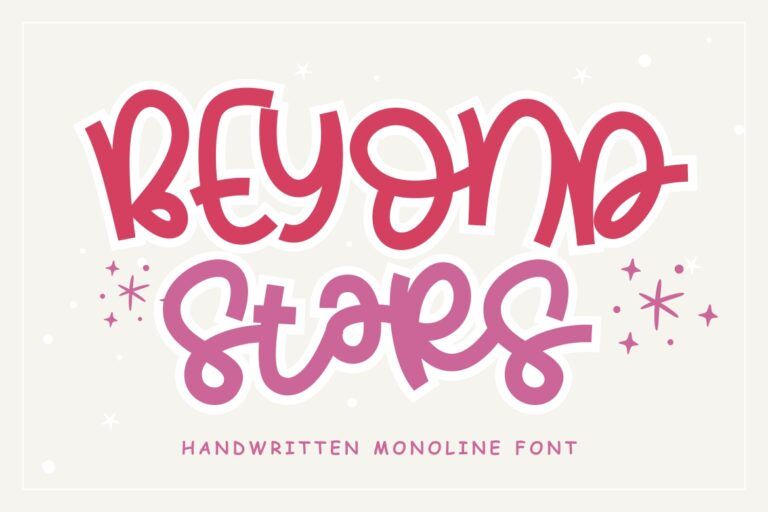
10 Font Cute Recommendations for Instagram Branding
On Instagram, visually appealing contents using font cute tend to gain more attraction and interaction. Instagram users often find these types of contents grabbing attention and inviting them to dig more.
Whether you work for companies or personal branding, having this impactful effect on your contents is not necessarily something unachievable. You just need to search for cute fonts that best represent your branding purposes.
This article can be a kick start to help you begin with the quest. Let’s go exploring the options!
Why Using Font Cute Effective for Instagram Branding?
A well-chosen cute font can effectively boost your Instagram branding and here are the reasons why you should not skip this as one of your branding strategies:
⦁ Conveying Brand Personality
If you are aiming to be an approachable brand, cute fonts are the right weapon to begin with. This type can evoke friendly and playful brand personality traits, helping you gain more recognition and maintain visual consistency.
⦁ Increasing Engagement
Because of its appealing designs, cute typefaces are likely inviting shares and saves. Audiences may find your contents captivating and memorable.
If it’s able to attract emotional appeal, audiences may also press likes and leave comments, increasing your engagement rate significantly.
⦁ Improving Storytelling
Font cute is easy to pair with narrative contents. It can support every type of earnest product stories and personal captions, reinforcing your brand to be the main character of the contents.
It also signals that you craft the stories with true intention and gradually build genuine connection with your audiences.
⦁ Target Audiences Alignment
Using adorable fonts can help brands speak directly to certain target audiences, especially those who value stylish, soft, playfulness, and aesthetic styles.
If your target audiences find your contents matching with their personal tastes, they will gravitate toward your brand voluntarily.
⦁ Stand Out from Competitors
It is not easy to stand out in crowded social media feeds like Instagram.
But, contents with cute fonts have higher chances to pop up among the busy feeds as long as it’s put in the right position. It will help your brand be discoverable amidst the sea of other million contents.
10 Best Cute Fonts for Instagram Branding
Ready to explore the best cute fonts for your Instagram branding? Follow these lists of font cute crafted and curated specially by HansCo Studio:
1. Cutie Kitty
Cute Kitty combines cute handwriting with clean and friendly styles. It’s easy to read and versatile to mix in any Instagram content designs. You can specifically use this font for cozy lifestyle or handmade business contents.
2. Beyond Stars
With its bouncy styles, Beyond Stars instantly give a cheerful and joyful look to your timelines. This font will keep your content alive and fresh without the need for being too formal with styles.
It is especially perfect for lifestyle and fashion businesses. But, it also works stunningly for creative pages and even children’s brands.
3. Fat Kat
Fat Kat is one of the adorable and cute retro fonts that match with current design trends in social media. For trend-aware audiences, content using font cute like Fat Kat will directly attract their interests.
The vibes and feels also signal a carefree effect which is ideal to create positive and happy branding. It is highly recommended to use this font for Instagram Reels and Stories, especially for intro and CTA.
4. Aloha Beach
Aloha Beach features thick letterforms with dramatic curvy accents. These features make your Instagram branding more stylish compared to the generic sans-serifs. It is not necessarily stiff and casual, but chic and fun.
Brands that want to look more artsy should consider using this font. It allows brands to bring back nostalgia while delivering cozy cute content styles.
5. Enjoy Forest
The waves and strokes of this cute font scream energetic vibes that resonate deeply for fun and creative brands. It is especially effective for mental wellness or positivity type of contents.
On the other hand, applying it into daily Instagram contents allows your brand to tap into current trends of Y2K designs, making it easier to be discovered by aesthetic design lovers.
6. Smothy
Smothy is a type of font cute that has bubble letterforms, giving off fun and friendly vibes. It’s super astonishing with its chunky shape and suited for quotes, Reels covers, and product announcements.
This typeface also suits different types of branding, from soft, bold to whimsical designs. Because of its flexibility, Smothy is excellent to use across niches, including food content, crafts, and wellness contents.